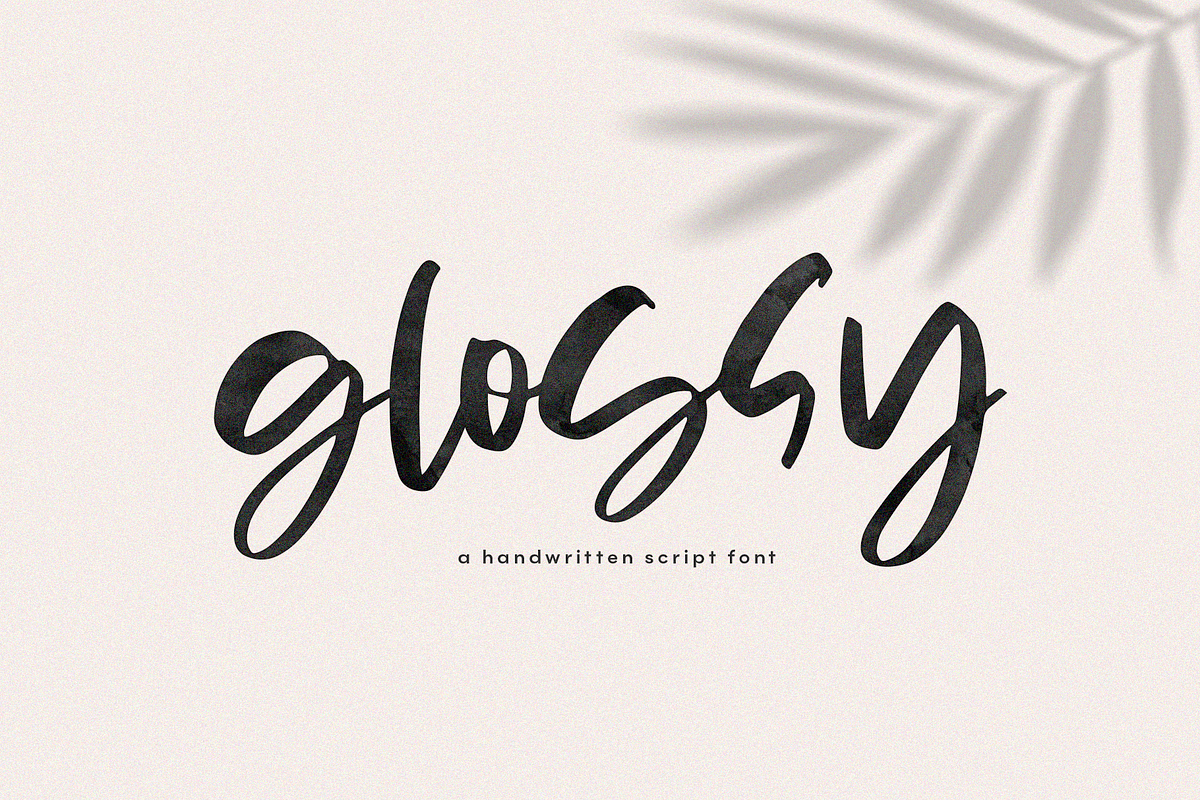
Glossy – A Handwritten Script Font Free Download is a sleek and modern script typeface that exudes charm and elegance. With its smooth, flowing lines and naturally stylish letterforms, Glossy is ideal for personal branding, logos, wedding stationery, social media content, and lifestyle packaging.
This font captures the authenticity of handwriting with just the right amount of polish—making it perfect for projects that need to feel both personal and professional. Glossy comes with ligatures, stylistic alternates, and multilingual support, and is fully compatible with both Mac and Windows systems.